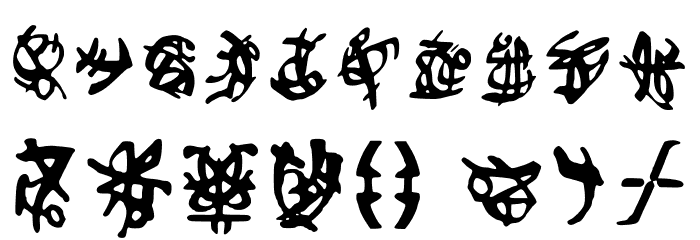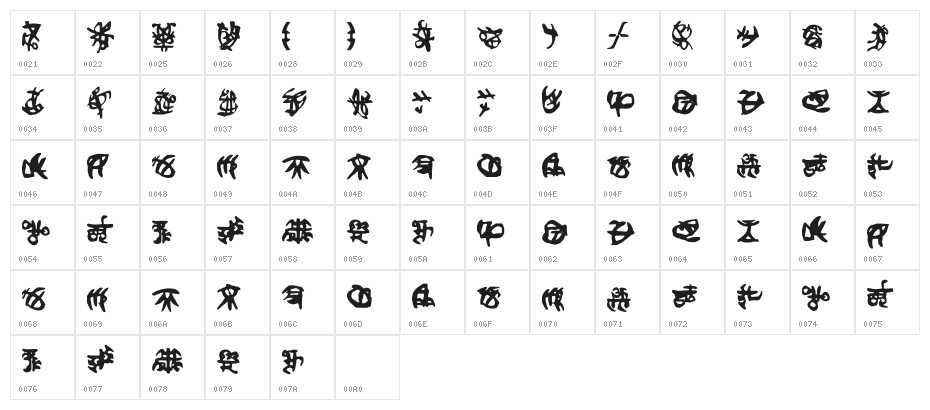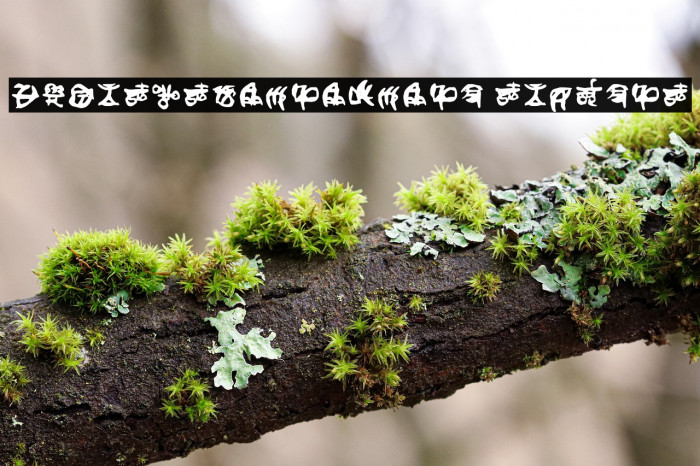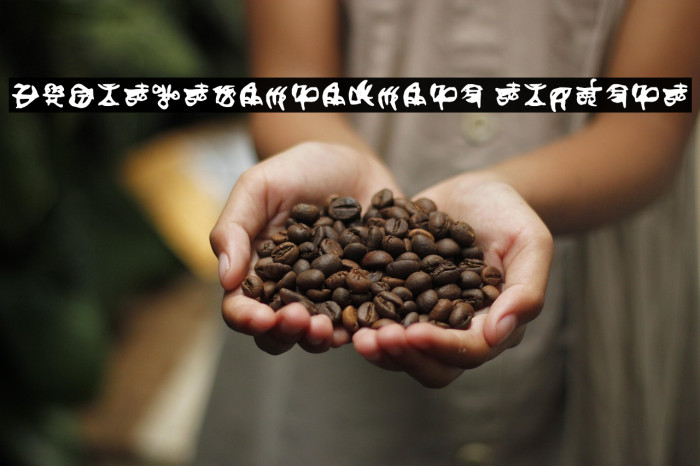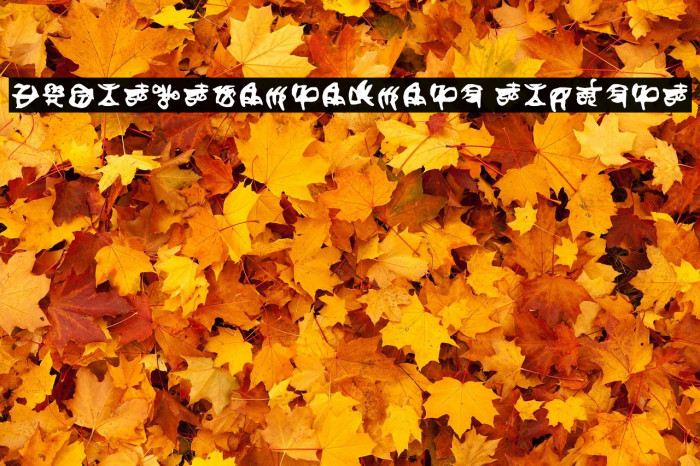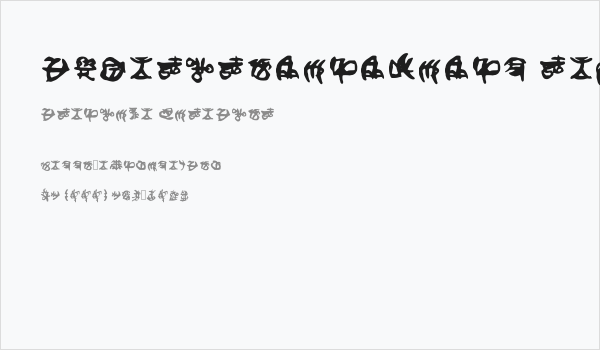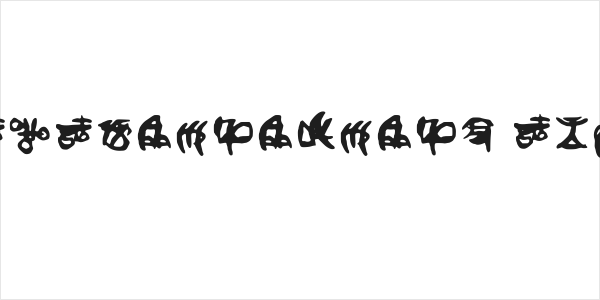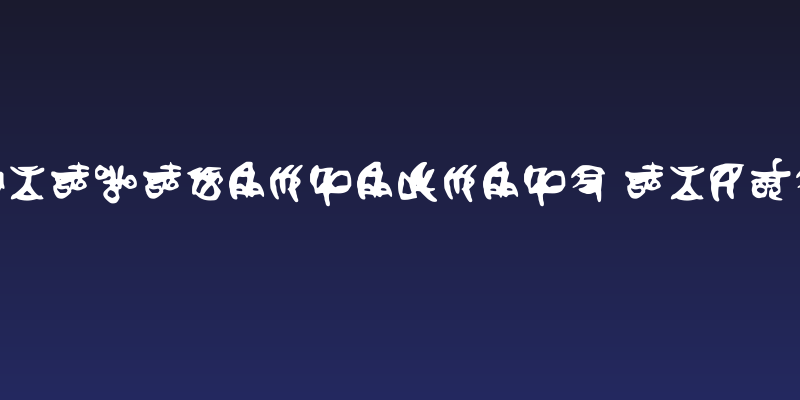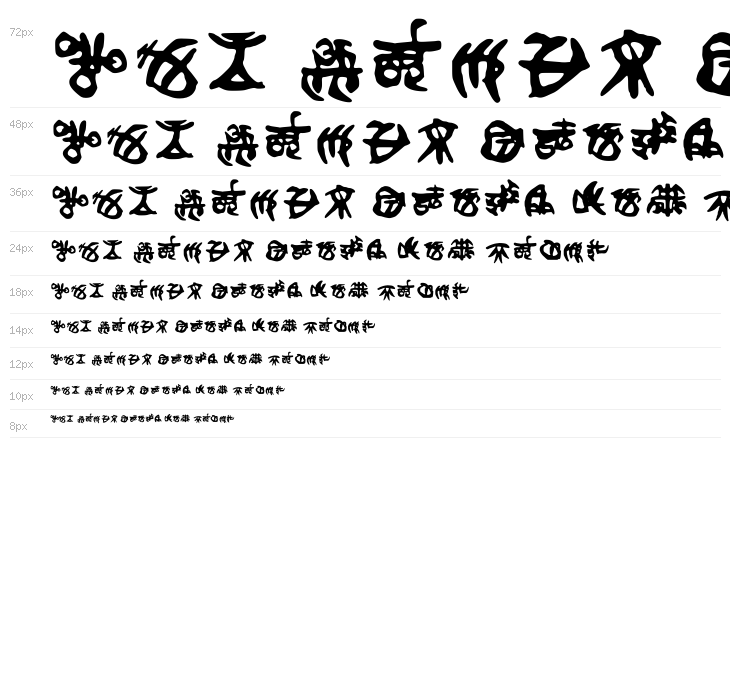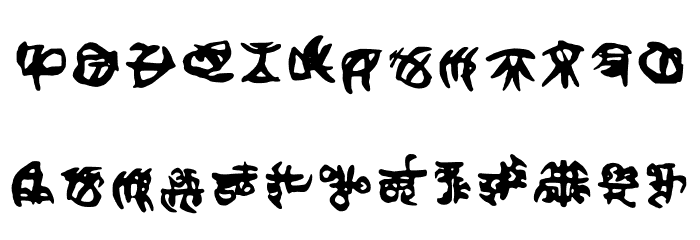
Cybertronianfinal Regular Font
Cybertronianfinal Regular Description
This font features a highly stylized and abstract design, reminiscent of alien or futuristic scripts. The characters are bold and intricate, with a unique blend of sharp angles and flowing curves that create a sense of movement and energy. Each letterform is distinct, with an emphasis on geometric shapes and symmetry, giving the font a decorative and ornamental appearance. The overall aesthetic is both mysterious and captivating, making it suitable for projects that require a touch of the extraordinary or otherworldly.
| Overall Style | Futuristic, Decorative |
| Proposed Projects | Ideal for science fiction themes, video game graphics, movie titles, and branding for tech companies. |